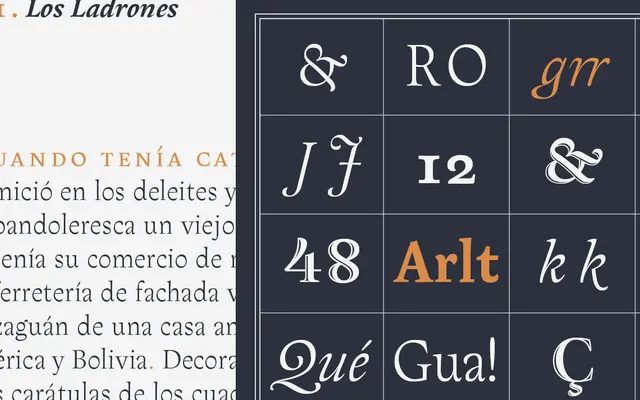
Arlt Título
Pampatype · Alejandro Lo Celso · 2008
A titling companion to the Arlt text family, designed by Alejandro Lo Celso with five styles including an openface variant for display settings above 24pt.
Designed by Alejandro Lo Celso and post-produced by José Luis Acosta, Arlt Título shares the proportions of the Arlt text type but is tuned specifically for headings and large-scale settings. Its five fonts span two weights — Blanca and Negra — each with a cursive, plus an openface Hueca for more ceremonial use. The family was a Typographica Favourite of 2008 and received an honourable mention at the Creative Review awards in London in 2005.
Described by the foundry as neoclassical and transitional in character, with display proportions designed for headings above 24pt and an openface variant for special occasions, placing it firmly in the display serif category.